In a heartwarming callback to the absurdly low-stakes controversies of the Obama era, the State Department is making extremely small waves by officially retiring the old workhorse Times New Roman font from official communications. It will be succeeded by Calibri, a font best known now for being publicly retired in 2021.
Really, though, there is no furore (let alone furor) about this, since if anyone cares enough about fonts to say anything, they probably are so tired of TNR by now that their only complaint would be “what took so long?” But it’s funny that it’s in the news at all.
The Washington Post learned of the change from a leaked cable sent by Secretary of State Anthony Blinken — not quite the operational security I’d hoped for from them, but we would have found out soon enough. The reason for the change is accessibility and readability: a sans serif font (i.e., without the little bits on the ends of letters) is considered by many to be easier to read at smaller sizes on digital devices, especially for those with vision impairments. (The upgrade to 14 point type will probably make it even better.)
It’s a laudable goal, even if it isn’t quite that simple: a more readable font is a good idea, but accessibility needs to be built into processes from the ground up, not as a layer on top. Still, small steps count too.
Funnily enough, the State Department is taking the same step Microsoft did way back in 2007, when it also replaced Times New Roman with the then-new Calibri as the default font for documents. The reasoning was largely the same: sans serif was more readable and people weren’t printing as much.
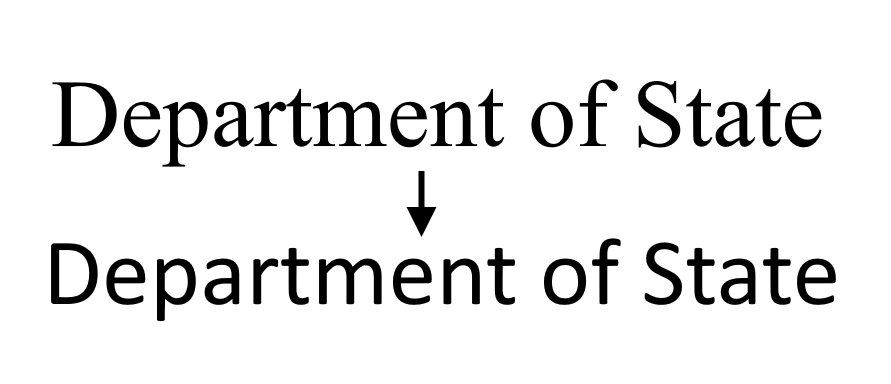
But that was a long time ago, and Calibri is now on its way out for various reasons, perhaps for its distastefully attenuated terminators. It’s not like it’s going to be purged from the Earth or anything like that — “not the default” isn’t a death sentence — but it’s definitely a bit strange to pick it as your “new,” highly official font given the circumstances.
It’s understandable that the federal government would generally prefer a product that’s been proven over many years of use. I don’t really expect them to switch to Roboto, or Source Sans, or even my preferred font out of the Microsoft replacements, Bierstadt. Although this one based on gerrymandered districts might have been appropriate:
It’s just that there’s actually a font made for this purpose: Noto. The collaboration between mega-foundry Monotype and Google is a totally free sans serif font that was built from the ground up to accommodate all languages, symbols, and ordinary typography needs. It’s great for any government application that might need to be printed in several languages, but even more so for the wide-ranging State Department. But perhaps they have their reasons for preferring a Microsoft default to a comparatively exotic Google typeface. “Keep It Simple, State.”
Design fluency is not really a federal strength, but they seem to be improving — better than many state governments, I must say, which often have agency and official pages that look straight out of 2007 themselves. In this case swapping to a more suitable font, even if it’s aged and uncool, is a good move and perhaps the trickle that precedes a flood of good, thoughtful design — of which accessibility is a part and a consequence, not just a component.